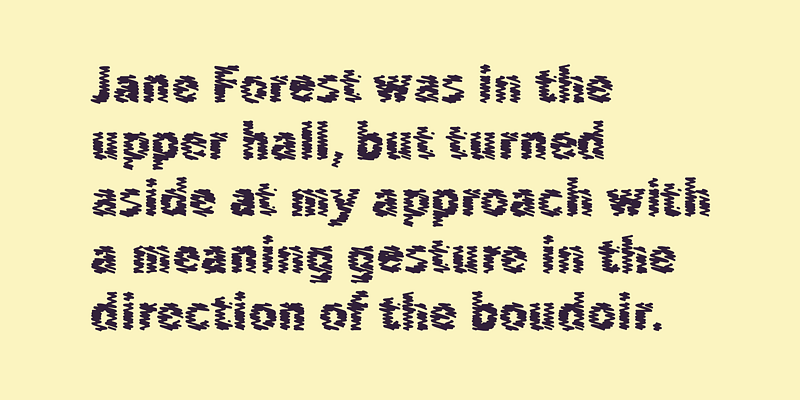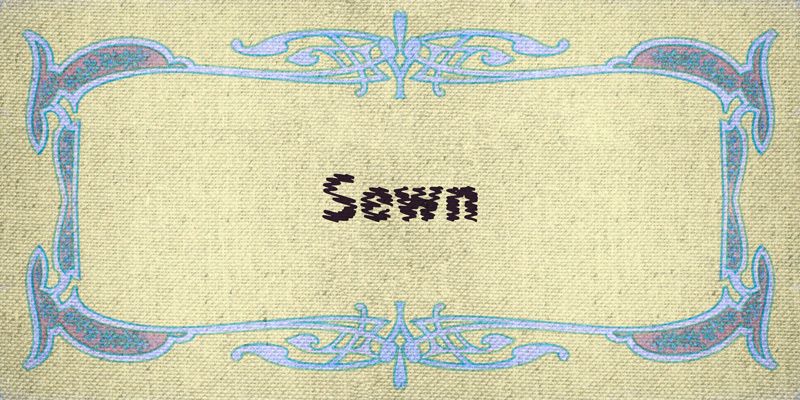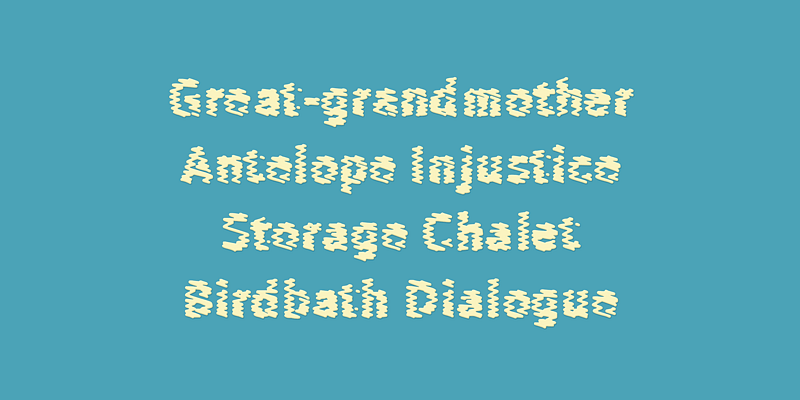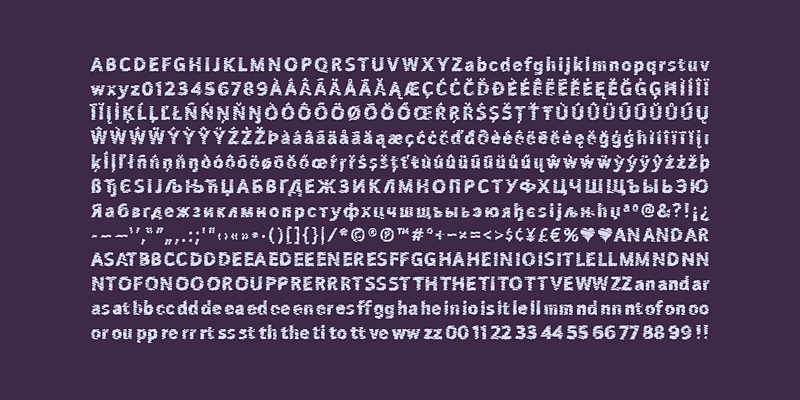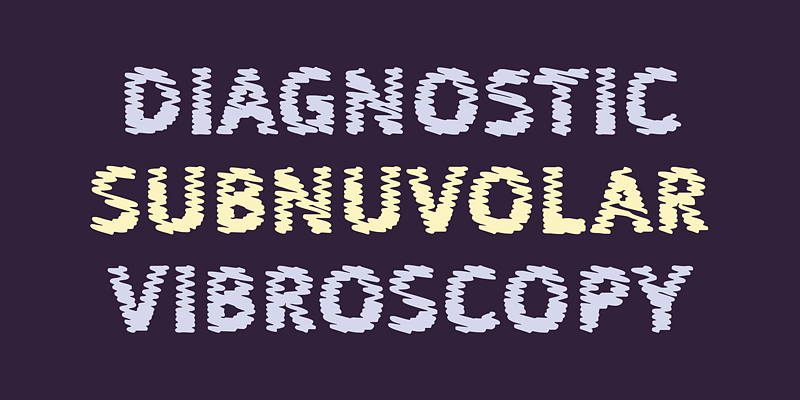
Sewn turns letters into a mechanical embroidery effect. Repeated thread-like marks build each form, while letter-pair ligatures introduce variation so recurring combinations do not look stamped from the same digital pattern. It carries the visual language of stitched garments into a poster, product graphic, store display, or campaign headline that needs to remain editable. Sports merchandise, apparel launches, textile exhibitions, and craft-themed packaging all offer natural settings. The M style makes the stitch pattern part of the message at display size. A collection name can look related to an embroidered garment even when it appears on a screen or shop window.